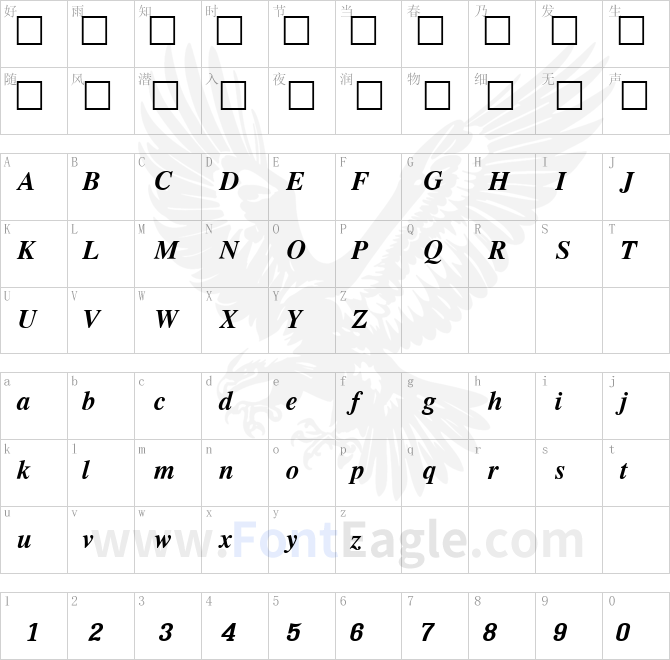
PSL ThaiCommon Bold Italic.ttf Font Image
PSL ThaiCommon Bold Italic.ttf Base Font Information
- Font name:PSL ThaiCommon
- Font Subfamily ID:PhanlopThongsuk: PSL ThaiCommon Bold Italic: 1999
- Font Full Name:PSL ThaiCommon Bold Italic
PSL ThaiCommon Bold Italic.ttf Characters Sample